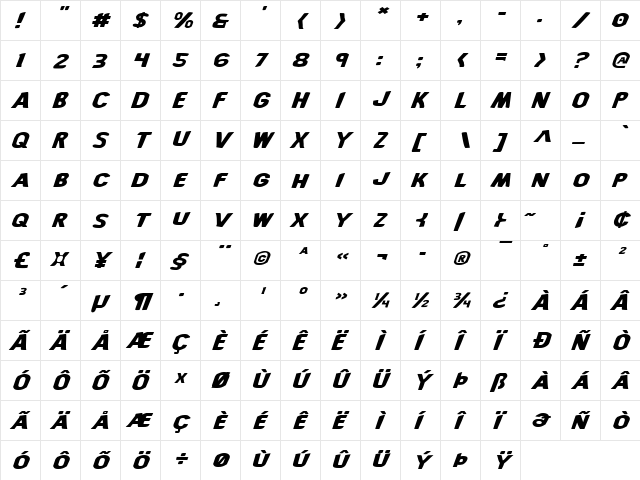
Bronic Expanded Italic
Design Context for Bronic Expanded Italic Typeface
Bronic Expanded Italic takes a measured approach to typography — its balanced proportions and neutral character make it a reliable workhorse for both digital and print work. Its italic angle brings a sense of urgency and motion to the letterforms.
Pro Tip: Try Bronic Expanded Italic for annotation and caption copy alongside an upright companion — the contrast in angle creates a dynamic but ordered typographic system.